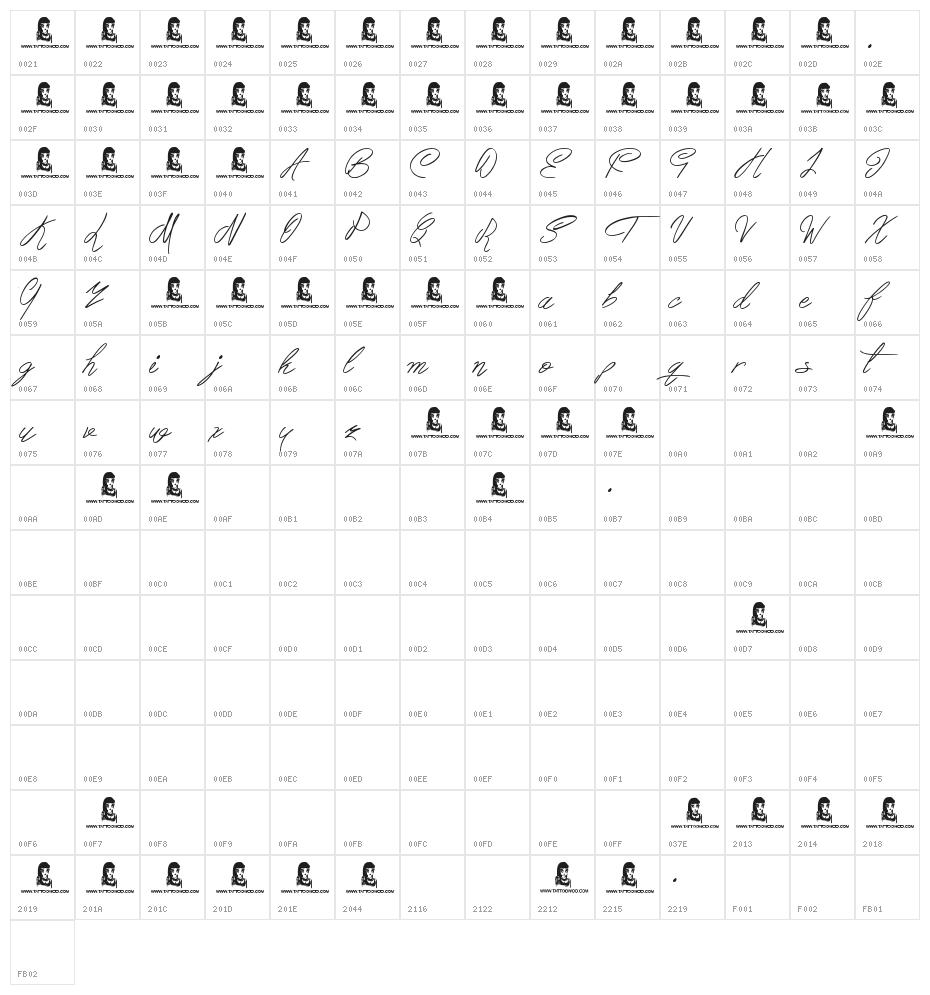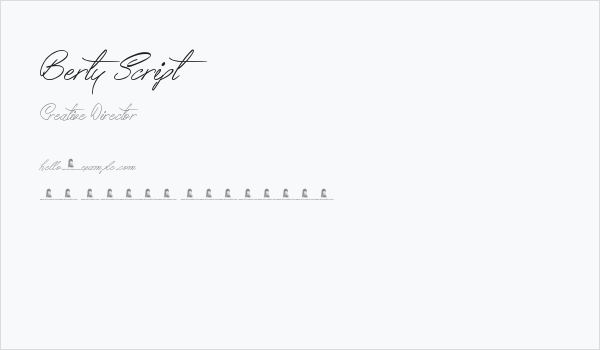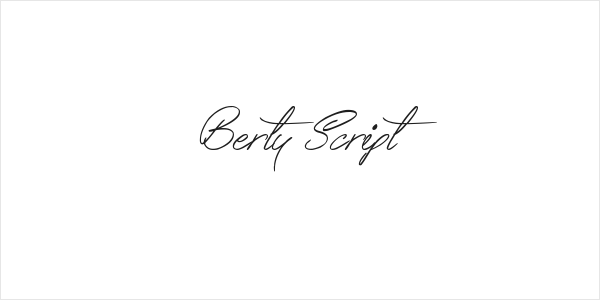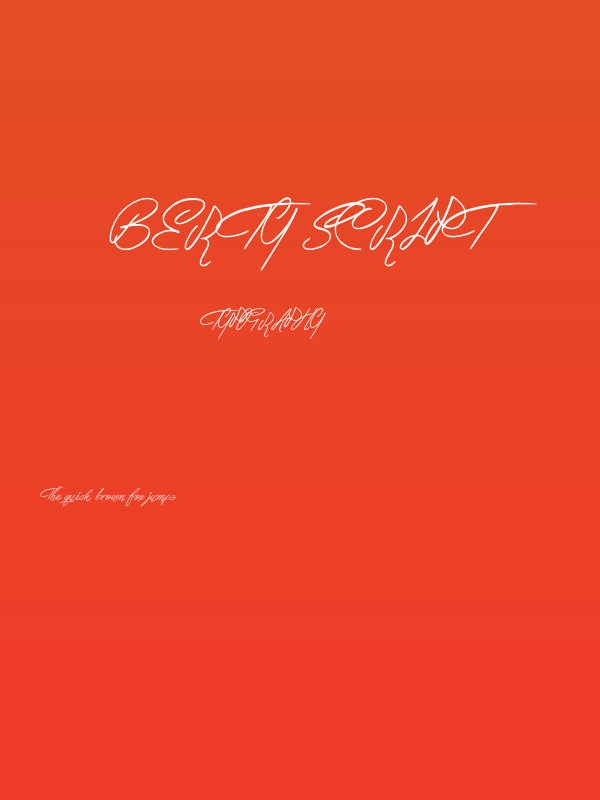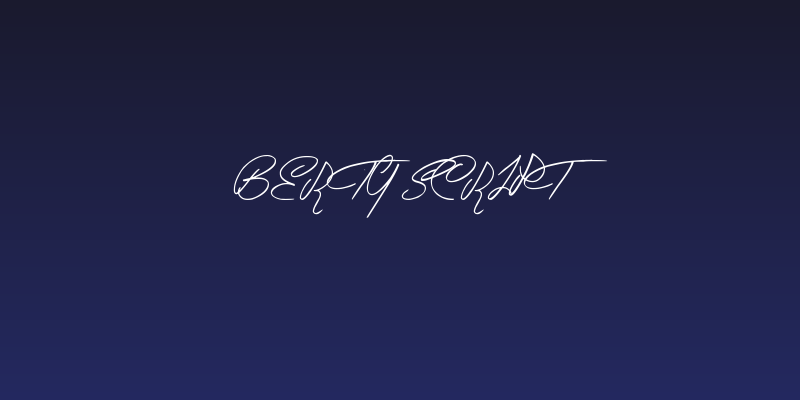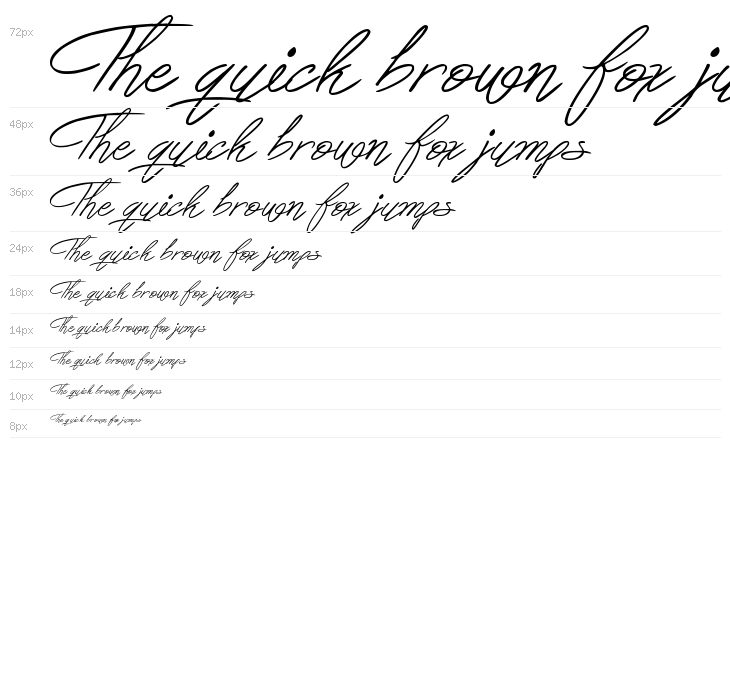
Berty Script Font
Berty Script Description
This elegant script font features a flowing, cursive style that mimics the fluidity of handwritten calligraphy. The letters are connected, creating a seamless and sophisticated look. The uppercase characters are bold and sweeping, with dramatic flourishes that add a touch of grandeur. The lowercase letters maintain a consistent style, with gentle curves and loops that enhance readability while preserving the artistic flair. This font is perfect for projects that require a personal touch, such as invitations, greeting cards, or branding materials. Its unique style makes it stand out, offering a blend of tradition and modernity.
| Overall Style | Elegant, Artistic |
| Proposed Projects | Ideal for wedding invitations, greeting cards, branding, and elegant signage. |